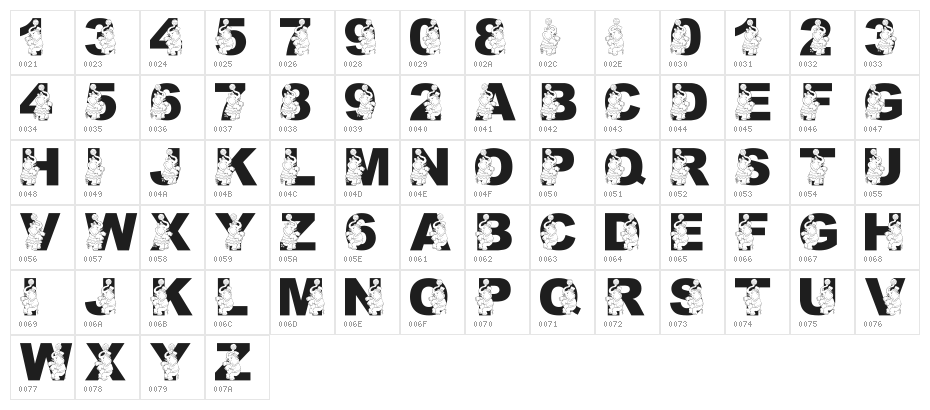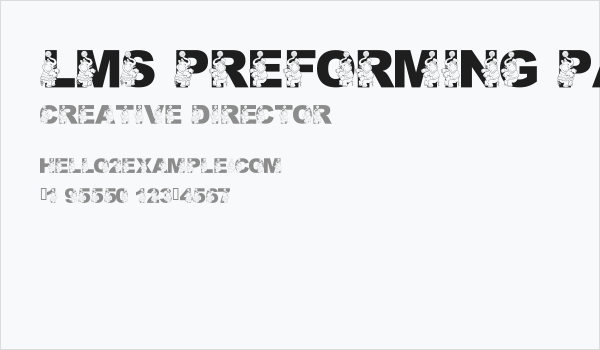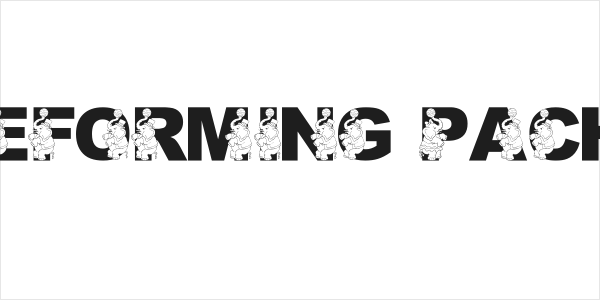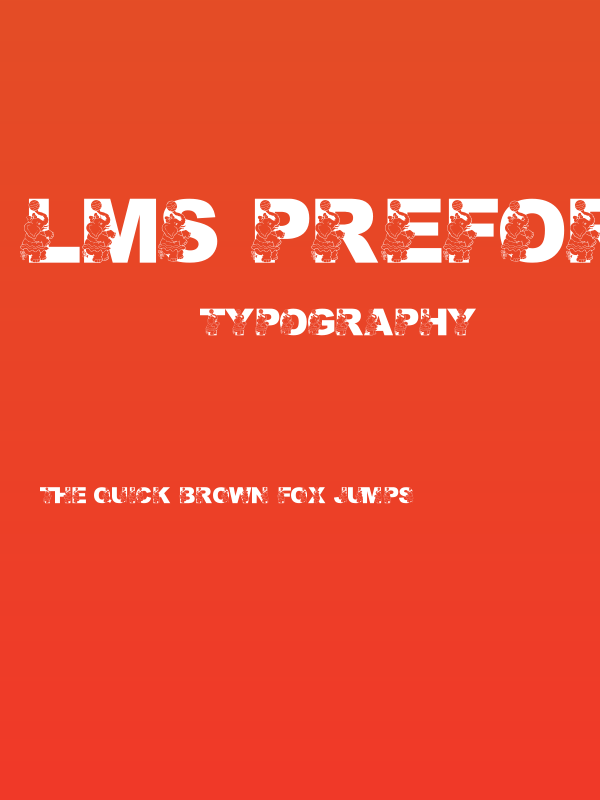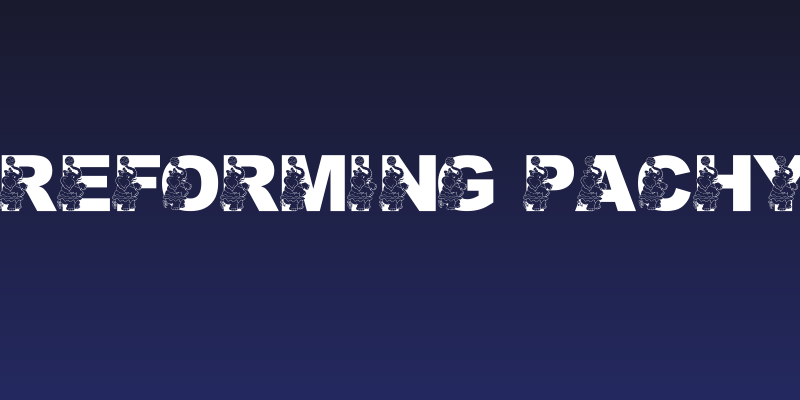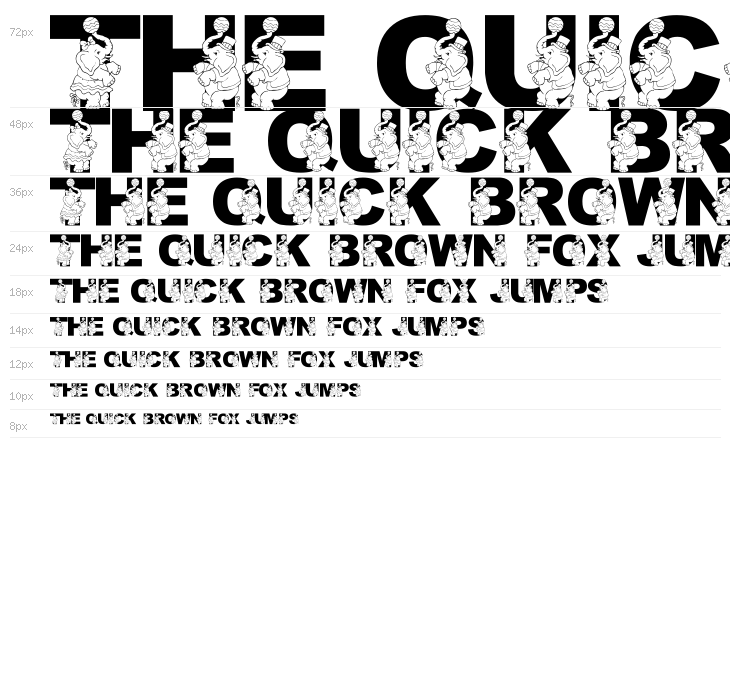
LMS Preforming Pachyderm Font
LMS Preforming Pachyderm Description
This playful and whimsical font features bold, uppercase letters and numbers, each uniquely integrated with charming illustrations of performing elephants. The characters are solid and robust, providing a strong visual impact, while the detailed elephant drawings add a delightful and humorous touch. This combination creates a lively and engaging aesthetic, perfect for capturing attention and conveying a sense of fun and creativity. The font's design is both decorative and functional, making it suitable for a variety of creative applications.
| Overall Style | Playful, Whimsical, Decorative |
| Use Case | Headlines, Posters, Branding |
| Proposed Projects | Ideal for children's books, playful branding, event posters, and any project requiring a fun and engaging visual style. |